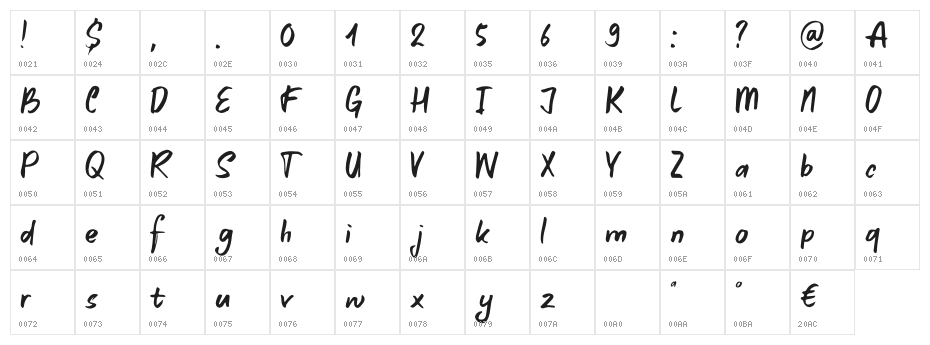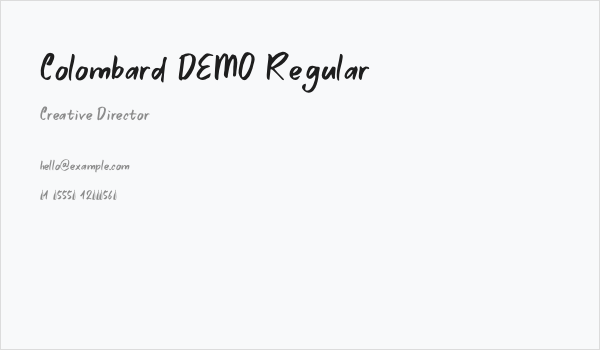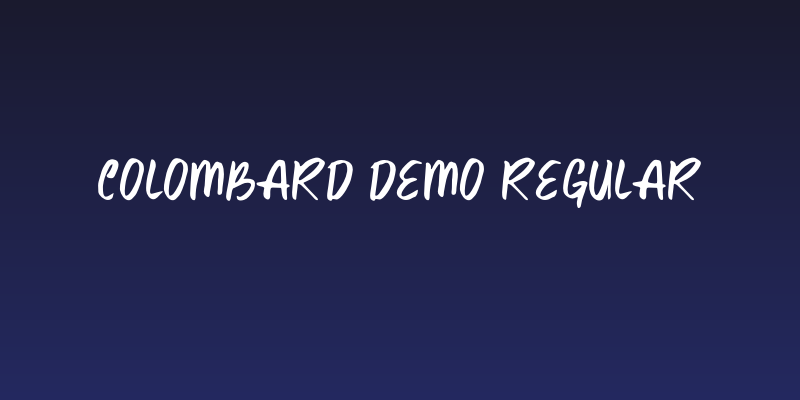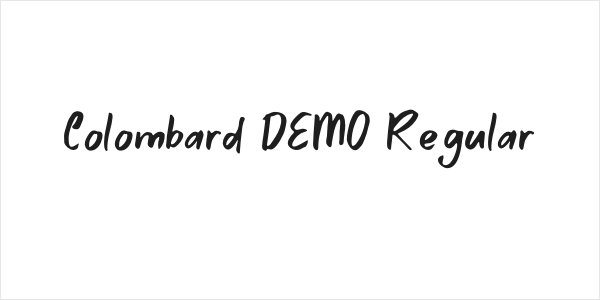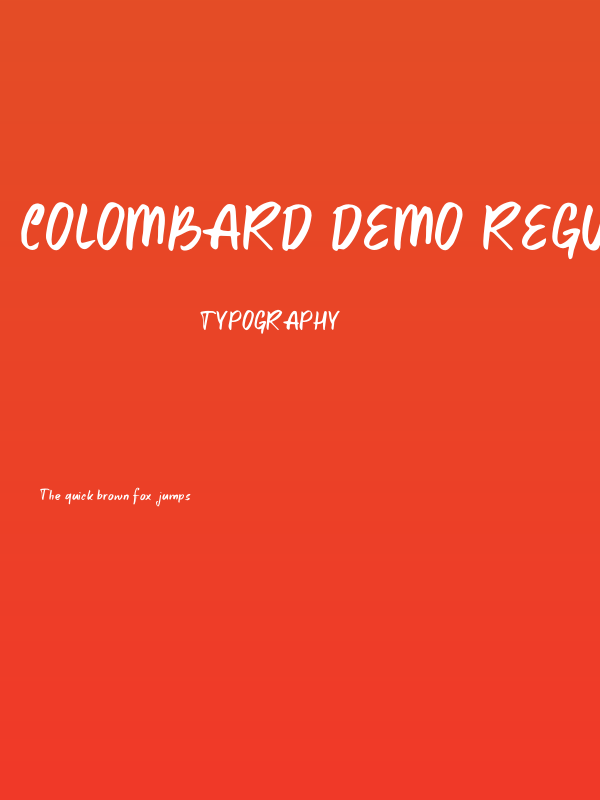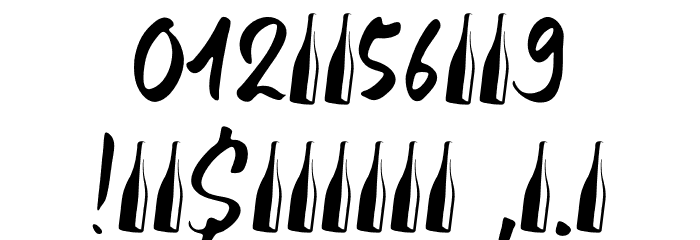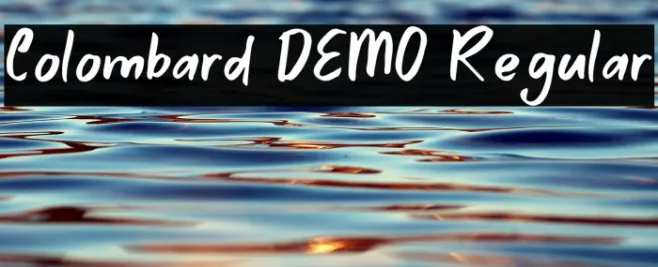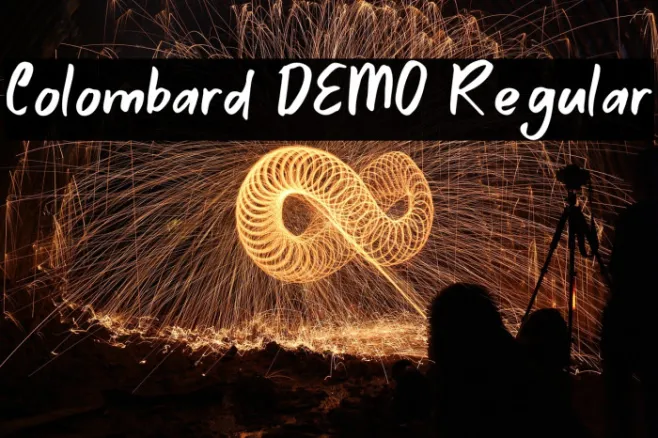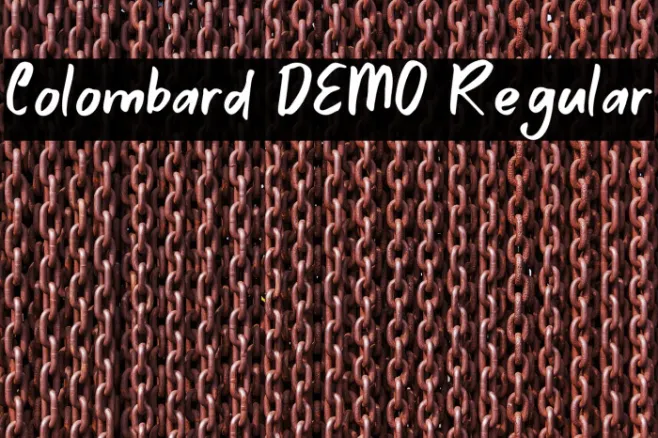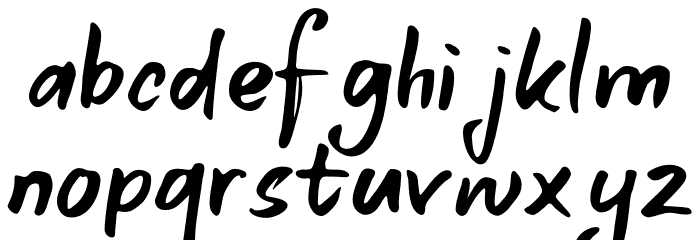
Colombard DEMO Regular Font
Colombard DEMO Regular Description
This font exhibits a playful and dynamic handwritten style, characterized by its fluid strokes and casual appearance. The letters have a natural, flowing quality, with varying stroke widths that add a sense of movement and energy. The uppercase and lowercase letters maintain a consistent style, while the numbers and special characters integrate seamlessly, enhancing the font's cohesive look. The overall design is both approachable and stylish, making it suitable for a variety of creative applications.
| Proposed Projects | Ideal for greeting cards, invitations, personal branding, and creative projects that require a friendly and informal touch. |